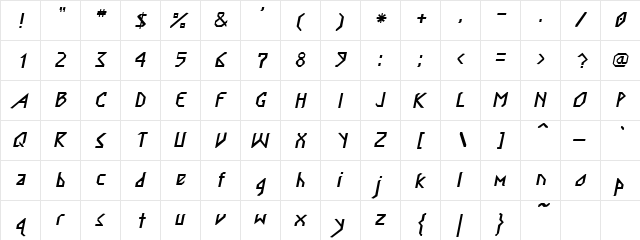
Embassy Oblique
Design Context for Embassy Typeface
Embassy is a composed and adaptable typeface that performs quietly and consistently across a wide range of design contexts. The dynamic lean of this cut emphasises speed and emphasis in any layout.
Pro Tip: Try Embassy for annotation and caption copy alongside an upright companion — the contrast in angle creates a dynamic but ordered typographic system.